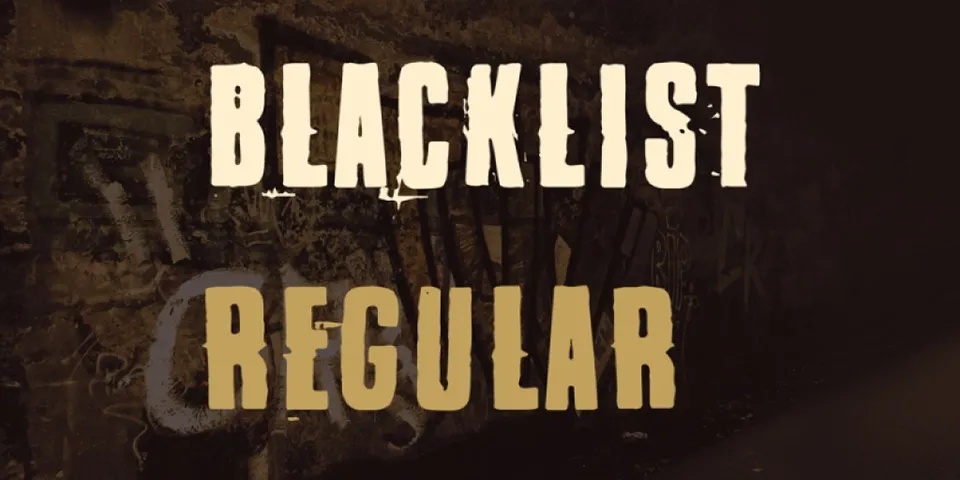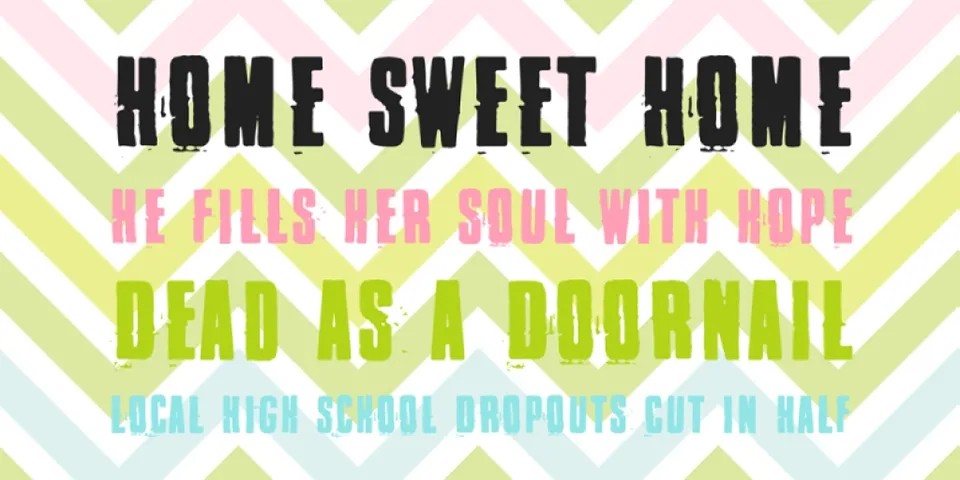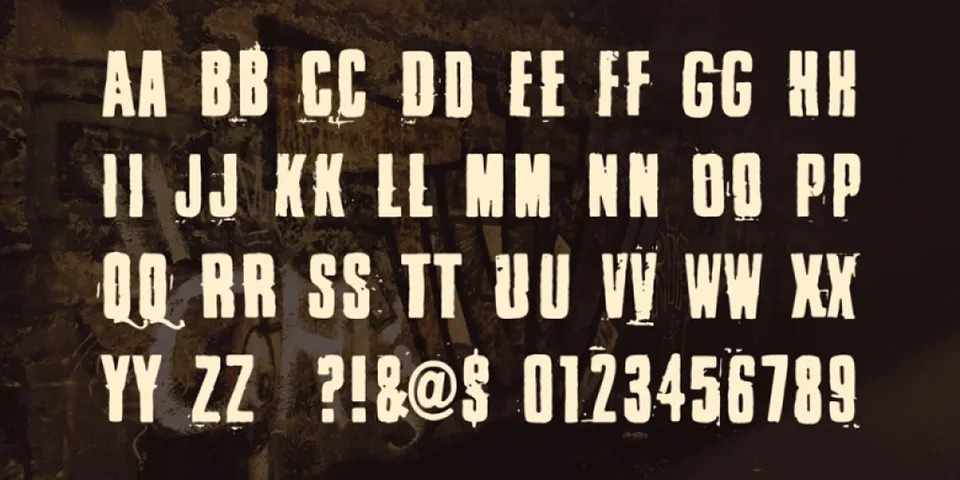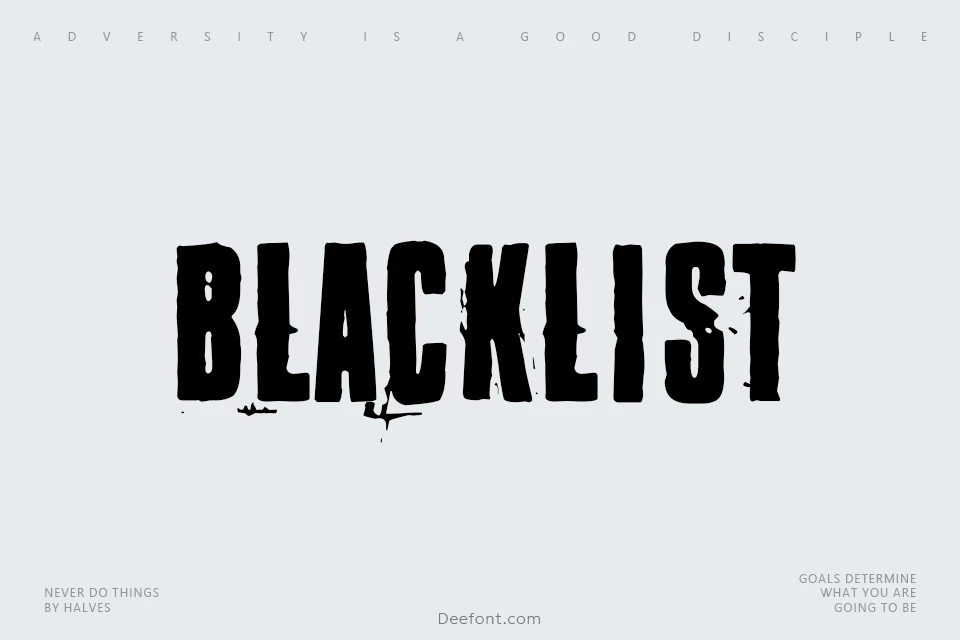
Blacklist Font
Blacklist Font is a bold and impactful display typeface featuring a unique cut-out style that creates a striking visual effect. The font showcases prominent uppercase letters with sharp angles and strong presence, making it particularly suitable for projects requiring powerful visual impact. This modern and eye-catching design excels in headline creation, logo design, and branding projects where memorable typography is essential. The font’s distinct blocky and rough aesthetic makes it ideal for creating standout designs that demand attention.